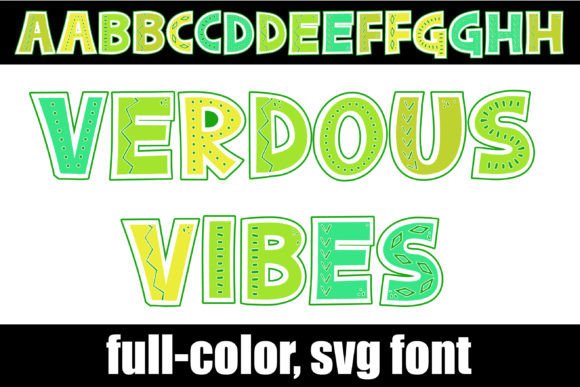
Verdous Vibes: A Playful Font for Festive and Modern Designs
St. Patrick's Day design often leans heavily on a familiar palette of clovers, leprechauns, and pots of gold. While these elements are iconic, they can sometimes make projects feel generic. What if your typography could capture the joyful, whimsical spirit of the holiday without relying on the same old clichés? This is where a typeface with a distinct personality can transform a good design into a memorable one, setting your project apart in a sea of green.
Capturing the Spirit of Celebration in Letterforms
Verdous Vibes is a modern display font designed to inject a dose of fun and festivity into your work. Its character shapes are playful and energetic, with a sense of movement that feels celebratory. The font isn't just about being bold; it's about having personality. The slightly irregular baselines and whimsical curves give it a handcrafted, approachable feel, making it ideal for projects that aim to connect on a personal level. Think of it as the typographic equivalent of a lively pub session or a cheerful parade—full of life and character.
Beyond its basic shapes, this typeface comes equipped with a suite of stylistic alternates and swashes. Because it is PUA encoded, accessing these decorative elements is straightforward, even if you're not using professional design software with advanced OpenType features. This accessibility is a huge practical benefit. You can easily add a flourish to the end of a word or swap in a unique letterform to create a custom look, giving your headlines and logos a bespoke quality without the custom design price tag.
Where Playful Typography Truly Shines
The true test of a creative font is its versatility. While Verdous Vibes is a natural fit for St. Patrick's Day promotions, its utility extends far beyond a single holiday. Its festive yet modern aesthetic makes it a valuable asset in a designer's toolkit for various applications throughout the year.
- Branding & Logo Design: For businesses in the food and beverage industry—think Irish pubs, bakeries, or craft breweries—this font can form the cornerstone of a brand identity that feels authentic and welcoming. It’s also perfect for seasonal branding campaigns, helping a brand temporarily adopt a fun, celebratory persona.
- Packaging & Merchandise: Imagine this font on a label for a special edition stout, a festive cookie box, or a line of themed apparel. Its bold presence ensures shelf appeal, while the swashes add a touch of premium craftsmanship.
- Marketing & Social Media: In the fast-scrolling world of social media, grabbing attention is key. Using Verdous Vibes for Instagram graphics, Facebook ads, or event posters can stop the scroll. Its playful vibe is highly engaging and works beautifully for announcements, quotes, and promotional banners.
- Events & Invitations: From wedding invitations with a Celtic theme to community festival posters or corporate St. Patrick's Day party invites, the font sets the right mood instantly. It communicates celebration and fun before a guest even reads the details.
- Editorial & Web Design: Used sparingly for pull quotes, chapter titles in a themed publication, or header text on a holiday-themed blog, it adds visual interest and breaks up the monotony of standard body text, enhancing reader engagement.
Making Your Designs Work Harder and Smarter
Choosing the right typeface is more than an aesthetic decision; it's a strategic one that impacts how your message is received. A font like Verdous Vibes can directly contribute to several key design and marketing goals when used thoughtfully.
Enhancing Brand Recognition: A distinctive font helps a brand stand out. When customers repeatedly see the same unique typeface across your packaging, website, and social media, it builds a visual shorthand for your brand. This consistency is crucial for recognition. While Verdous Vibes might not be for your everyday body copy, using it consistently for specific elements like your logo, tagline, or campaign headers creates a cohesive and recognizable brand language.
Driving Audience Engagement: People are drawn to designs that evoke emotion. The inherent cheerfulness of a well-crafted playful font can make your content feel more approachable and shareable. It signals that your brand has a personality and isn't afraid to show it, which can foster a stronger connection with your audience, particularly in lifestyle, food, and event-based industries.
Maintaining Professional Presentation: There's a fine line between playful and unprofessional. The key is in the execution. A high-quality premium font ensures that the playful shapes are still well-balanced and legible. Verdous Vibes is designed to be both fun and polished, so your festive designs will still look intentional and high-end.
Practical Tips for Integrating a Festive Font
Bringing a bold, character-driven font into your projects requires a bit of strategy to ensure it enhances rather than overwhelms your design. Here are some practical considerations for working with a typeface like this.
- Pairing is Everything: A display font with this much personality needs a quieter partner. Pair it with a clean, simple sans-serif font for body text. This creates a clear visual hierarchy and ensures your main message remains highly readable. Let the display font be the star of the show in headlines, and let the sans serif handle the supporting role of paragraphs and captions.
- Prioritize Readability: Always test your font choices in context. What looks great as a single word on a blank canvas might become challenging to read in a longer headline or at smaller sizes. Check the legibility of individual characters, especially in words with repeating letters or complex combinations. The included alternates can sometimes help solve spacing issues or add visual variety to improve flow.
- Review All the Styles: Don't just install and use the basic font file. Take the time to explore all the included glyphs, swashes, and alternates. These extras are what allow you to customize the font and make it uniquely yours for each project. A simple swash can turn a standard wordmark into a memorable logo.
- Understand the License: For any commercial project, whether it's client work or your own business, verifying the font's licensing is non-negotiable. Ensure the license covers your intended use, be it for digital products, printed merchandise, or client branding. Using a font correctly protects you legally and respects the work of the type designer.
Ultimately, a font like Verdous Vibes is a tool for storytelling. It allows you to quickly communicate a mood of celebration, warmth, and fun. By using it strategically—balancing its exuberant style with simpler elements and always keeping your audience's experience in mind—you can create designs that are not only visually striking but also effective in communicating your message and strengthening your brand's visual identity. The right typeface doesn't just display words; it helps you tell a better story.